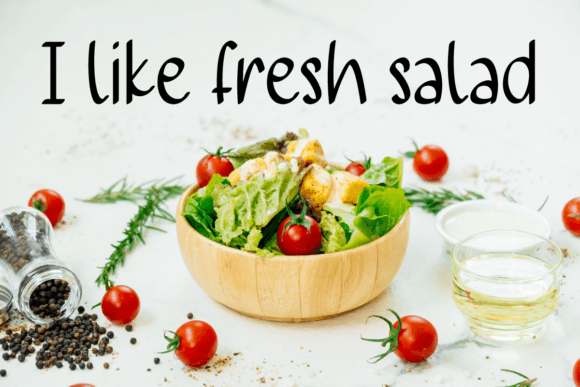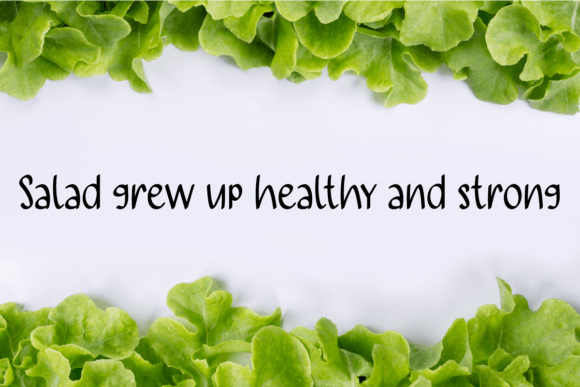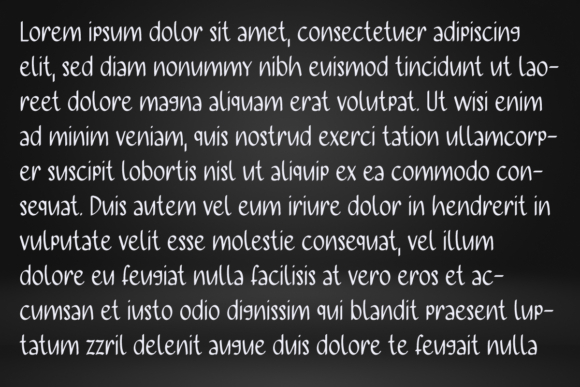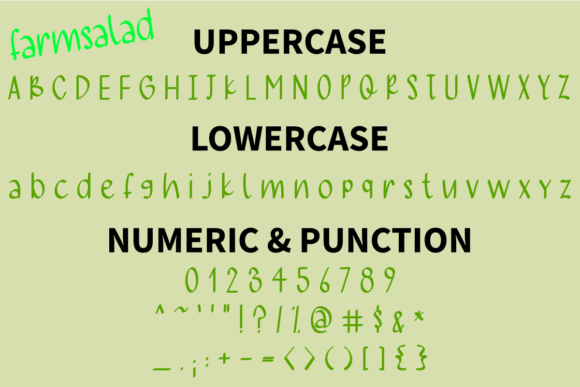
Introduction to Farmsalad Font
Have you ever stumbled upon a design that just makes you smile? For designers, that ‘aha’ moment can be a game-changer. It’s the perfect blend of creativity and visual appeal that leaves you thinking, ‘I need to use this in my next project!’ For me, that moment happened when I discovered the Farmsalad Font. This delightful handwritten font is more than just a pretty face – it’s a design resource that adds a touch of whimsy to any high-quality project.
As a design enthusiast, I can confidently say that the Farmsalad Font is a valuable addition to any creative project. With its transparent background and free download option, it’s an ideal choice for designers who want to add a personal touch to their work without breaking the bank. Whether you’re working on a logo, wedding invitation, or advertisement, this font is sure to brighten up your design and leave a lasting impression.
Key Features of Farmsalad Font
• High-quality, vector-based design for crisp and clear display in various sizes
• Transparent background, making it easy to use on any design project
• Includes a range of font styles and weights to suit different design needs
• Designed to be scalable, with a resolution of up to 300 DPI for high-quality printing
• Perfect design resource for graphic designers, digital artists, and anyone looking for a unique and versatile font
Honest Review: Farmsalad Font
I recently came across the Farmsalad Font, a high-quality font that caught my attention with its unique and creative design. One of the standout features of this font is its transparent background, making it perfect for any design project that requires a subtle look.
One of the best things about the Farmsalad Font is its free download option, making it an excellent resource for designers on a budget. This font is ideal for any creative project that requires a playful and whimsical touch.
What works well: ✨ Unique design, ✨ High-quality, ✨ Transparent background, and ✨ Free download option
However, there are a few limitations to consider: ⚠️ Limited font styles, ⚠️ Not suitable for formal projects, and ⚠️ May not be compatible with all software.
In my opinion, the Farmsalad Font is a great addition to any designer’s toolkit. While it may not be perfect for every project, it’s a valuable resource for anyone looking to add a bit of personality to their creative work.
• Perfect for creative projects
• Unique and playful design
Farmsalad Font
The Farmsalad Font is a unique and creative design resource ideal for any high-quality project. Its transparent background makes it perfect for layering over other elements, adding a touch of sophistication to your design.
Tips for Getting the Most Out of Farmsalad Font
• Experiment with layering the font over different backgrounds to achieve unique effects.
• Use the font in combination with other design elements to create a cohesive look.
• Take advantage of the font’s transparent background to add depth and interest to your design.
• Graphic design projects
• Branding and logos
• Social media graphics
• Print materials
Alternatives to Farmsalad Font
A high-quality, elegant script font ideal for creative projects that require a touch of sophistication. It features a transparent background and a beautiful, handwritten feel. When to use: wedding invitations, luxury branding, and high-end packaging.
Compared to Farmsalad Font, Alex Brush Font has a more refined and luxurious feel, making it suitable for high-end designs. It also has a wider range of ligatures and swashes, allowing for more creative possibilities.
A modern, sans-serif font designed for high-quality designs that require clarity and readability. It features a transparent background and a clean, minimalist aesthetic. When to use: corporate branding, digital products, and editorial content.
Compared to Farmsalad Font, Carolyna Pro Font is more geometric and modern, making it suitable for contemporary designs. It also has a wide range of weights and styles, allowing for flexibility in design.
Is Farmsalad Font suitable for use in digital and print projects?
Yes, Farmsalad Font is designed to be used in both digital and print projects. Its high resolution and transparent background make it suitable for use in a variety of applications, including logos, branding materials, and marketing collateral.